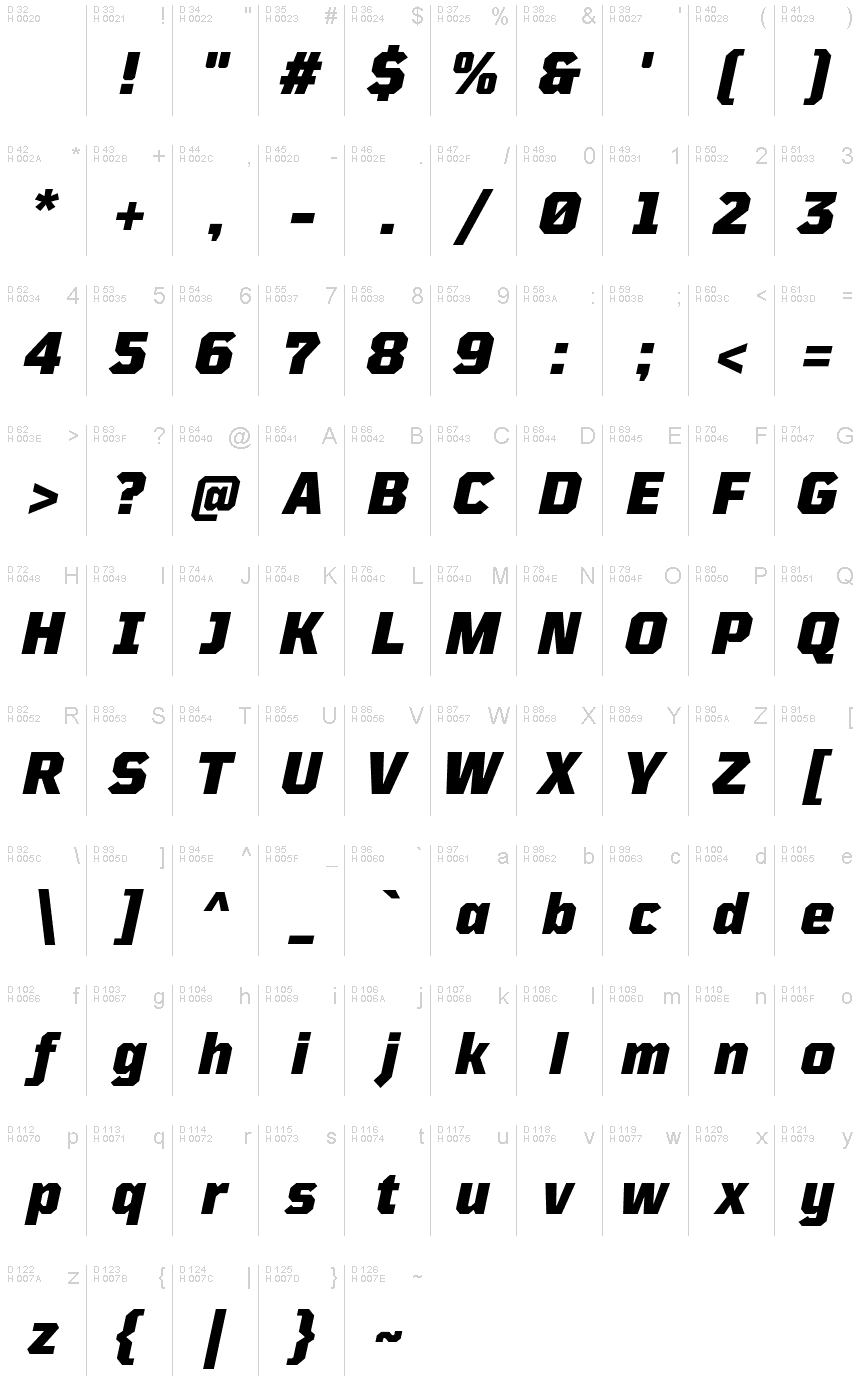
TT Mussels Black Italic, designed by TypeType, is the perfect display font for projects that require a bold and futuristic touch. With its extra-bold weight and techno style, this font family is ideal for branding campaigns or packaging designs that aim to stand out from the crowd. The italicized version of the font adds an element of elegance and sophistication to any project, making it suitable for use in luxury product advertising or high-end fashion magazines. Embrace the boldness of TT Mussels Black Italic in your next design project and watch it come to life with a modern edge.